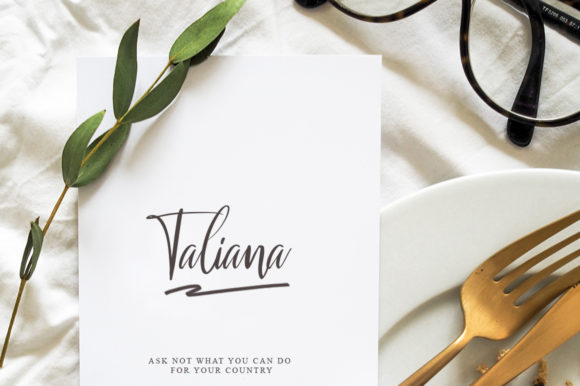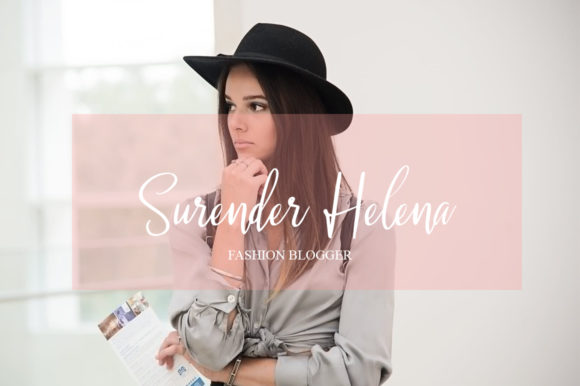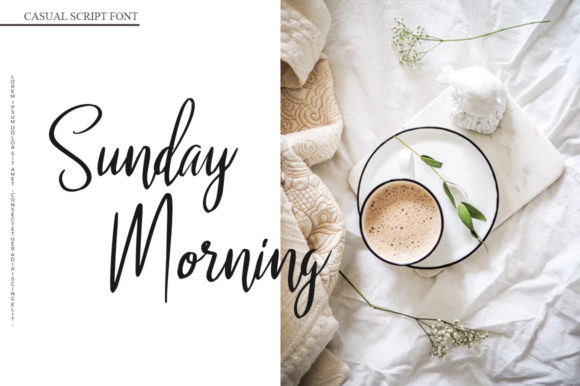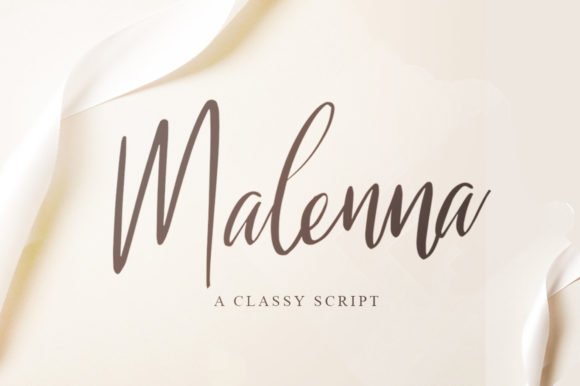
Introduction to Malenna Script Font
The Malenna is a brand new script font.
It was inspired by signatures and has an amazing stylish handwriting Perfect for many different project such as logos & branding, invitations, stationery, wedding designs, social media posts, advertisements, product packaging, product designs, labels, photography, watermarks, and much more.